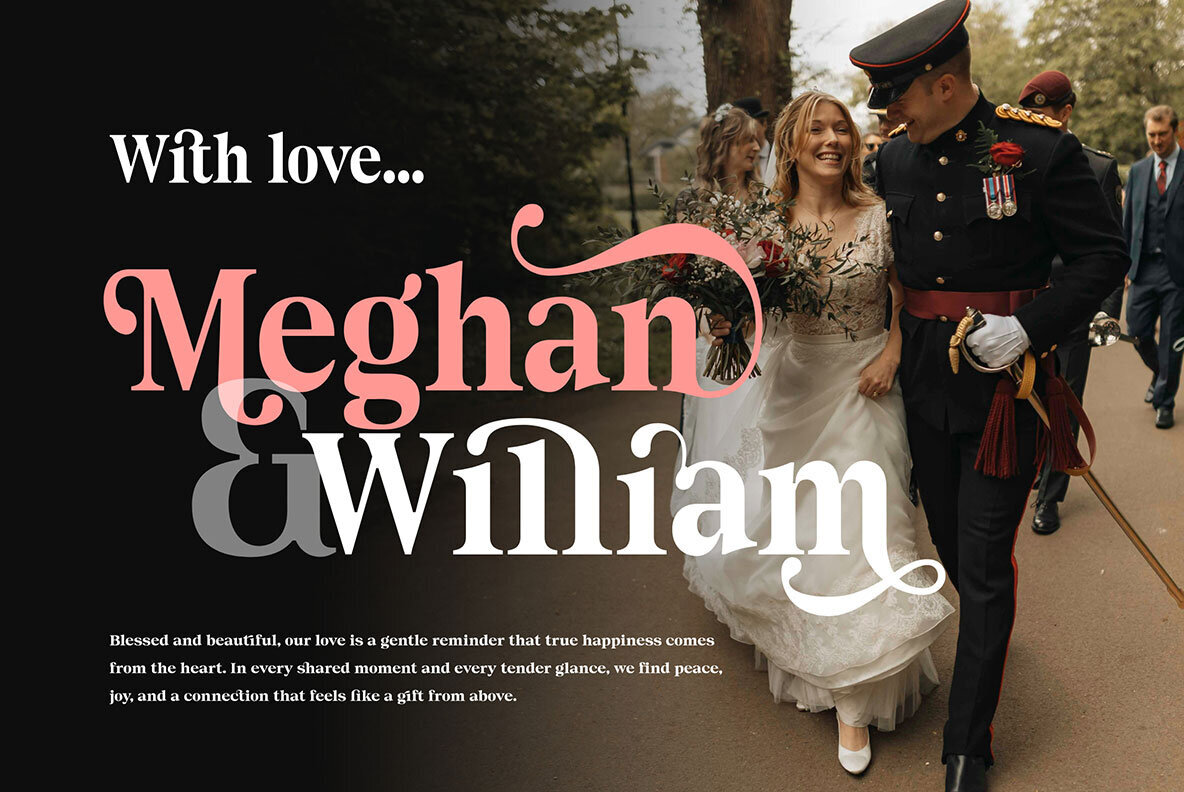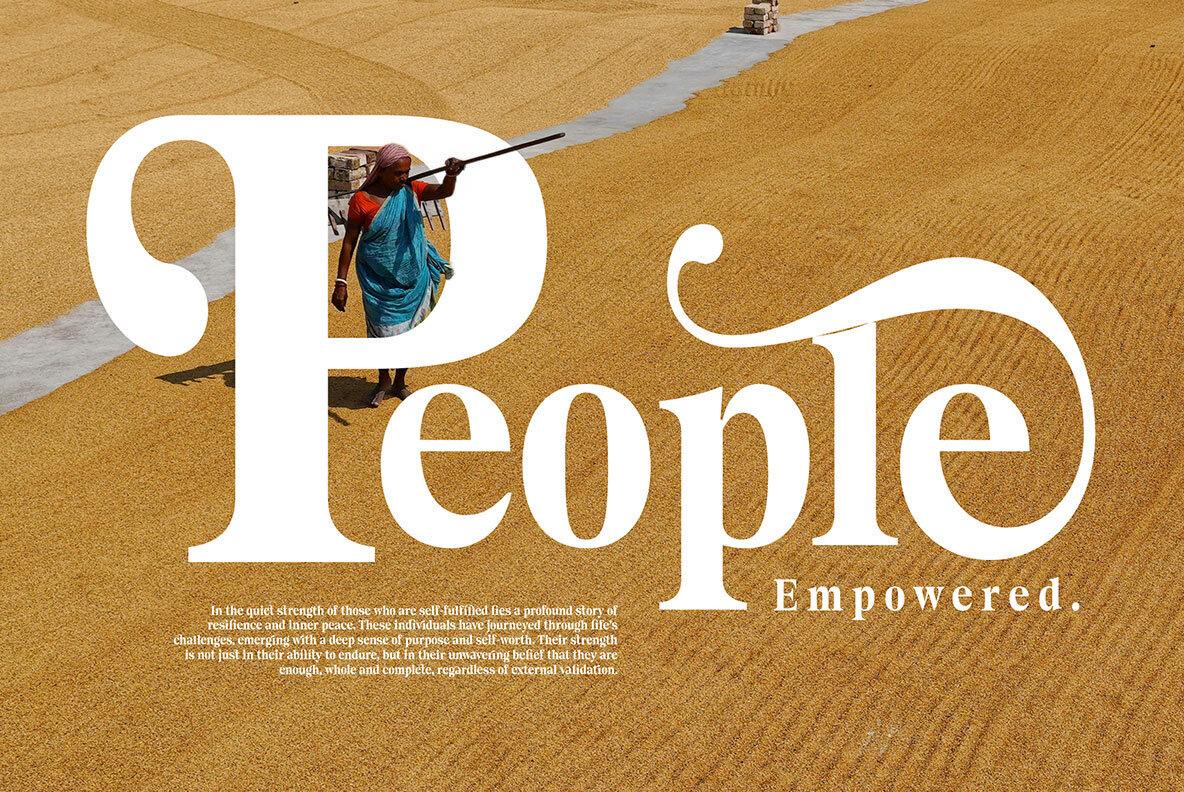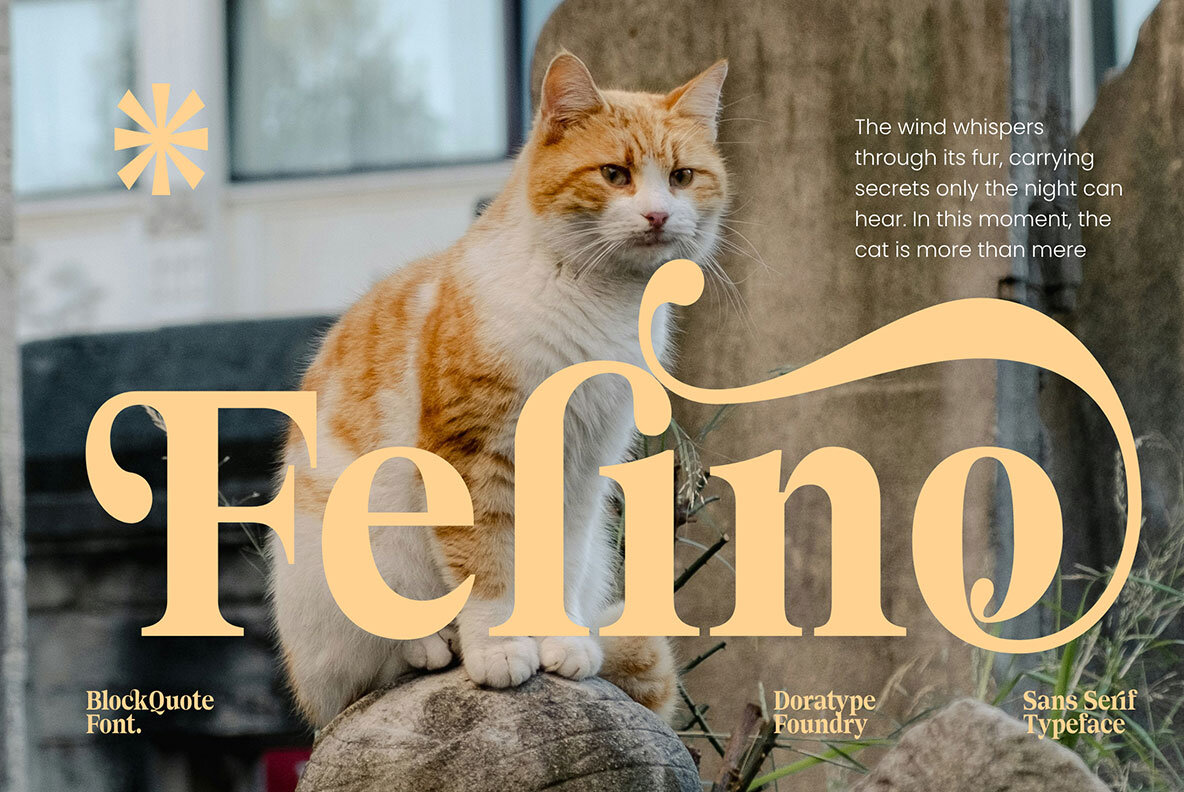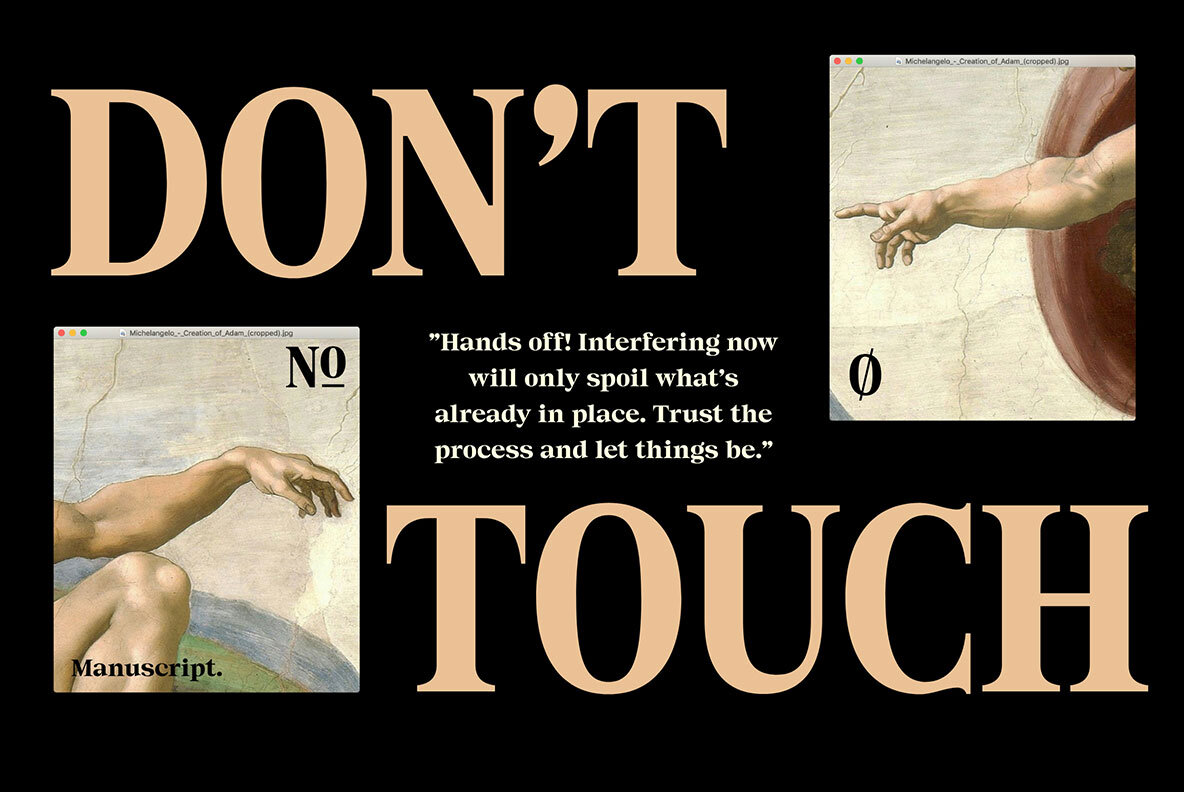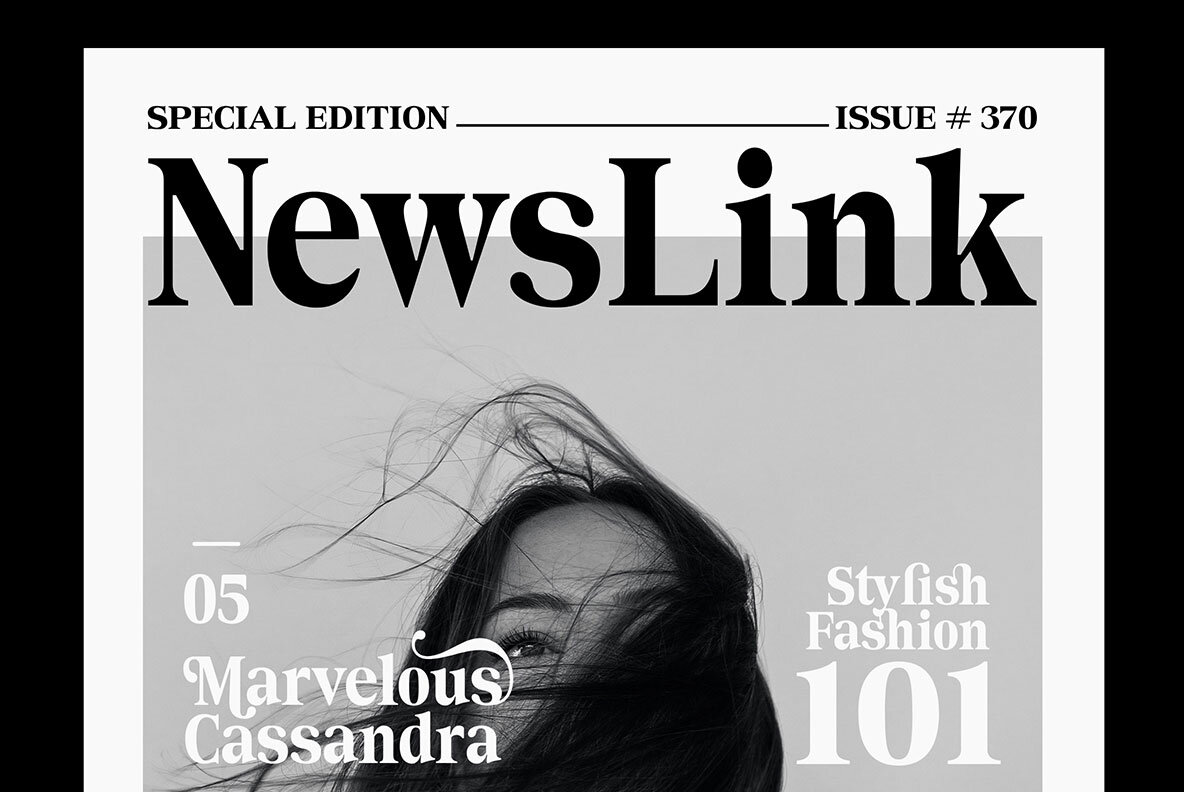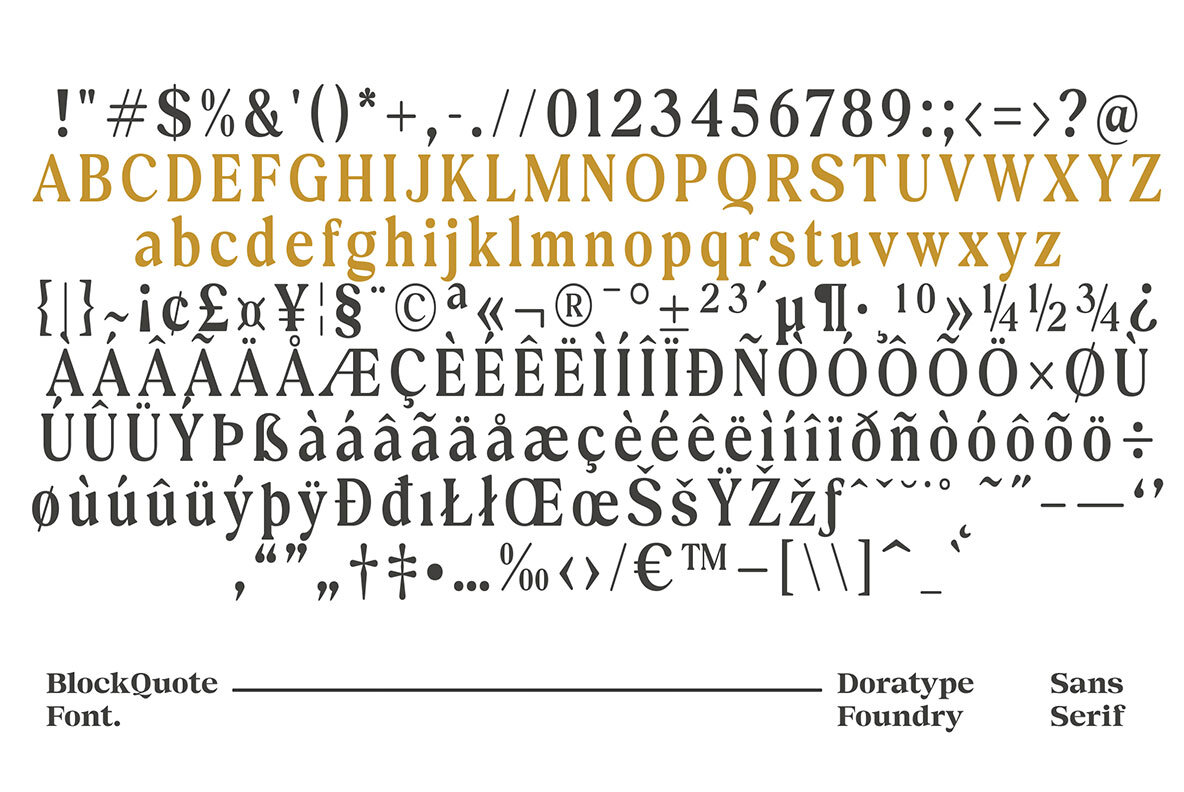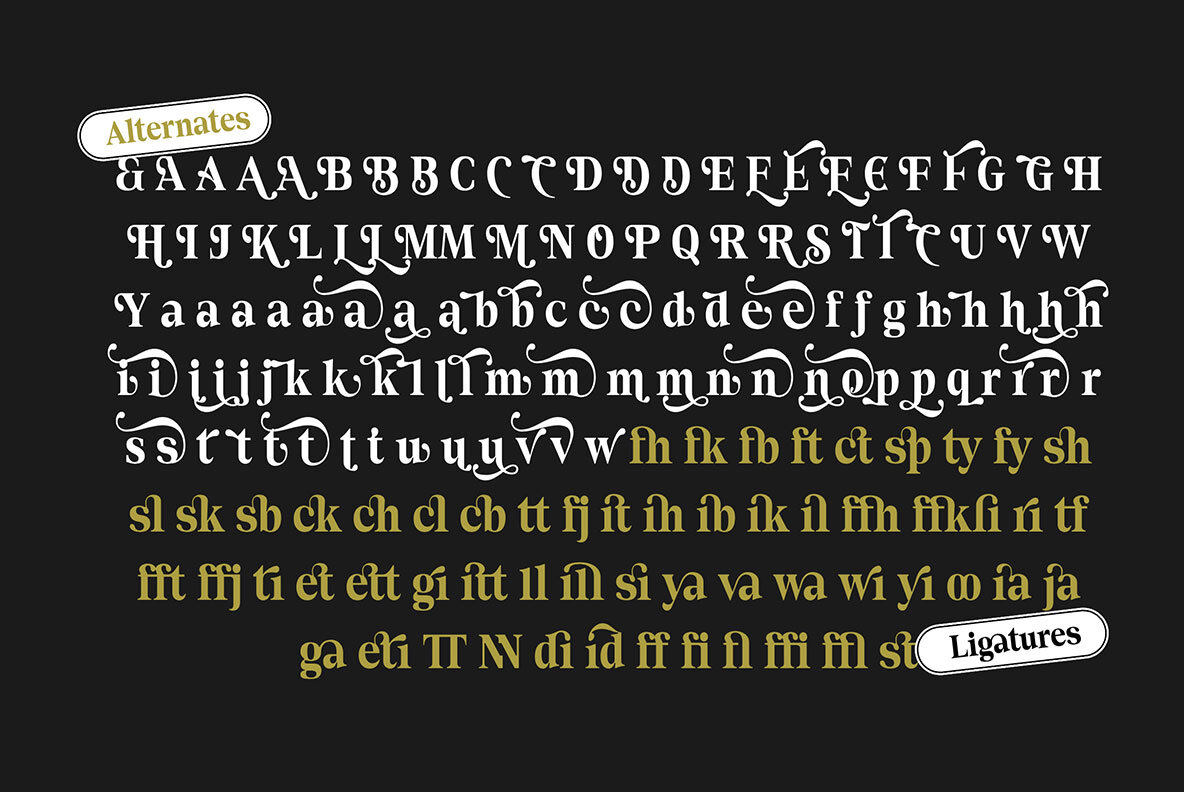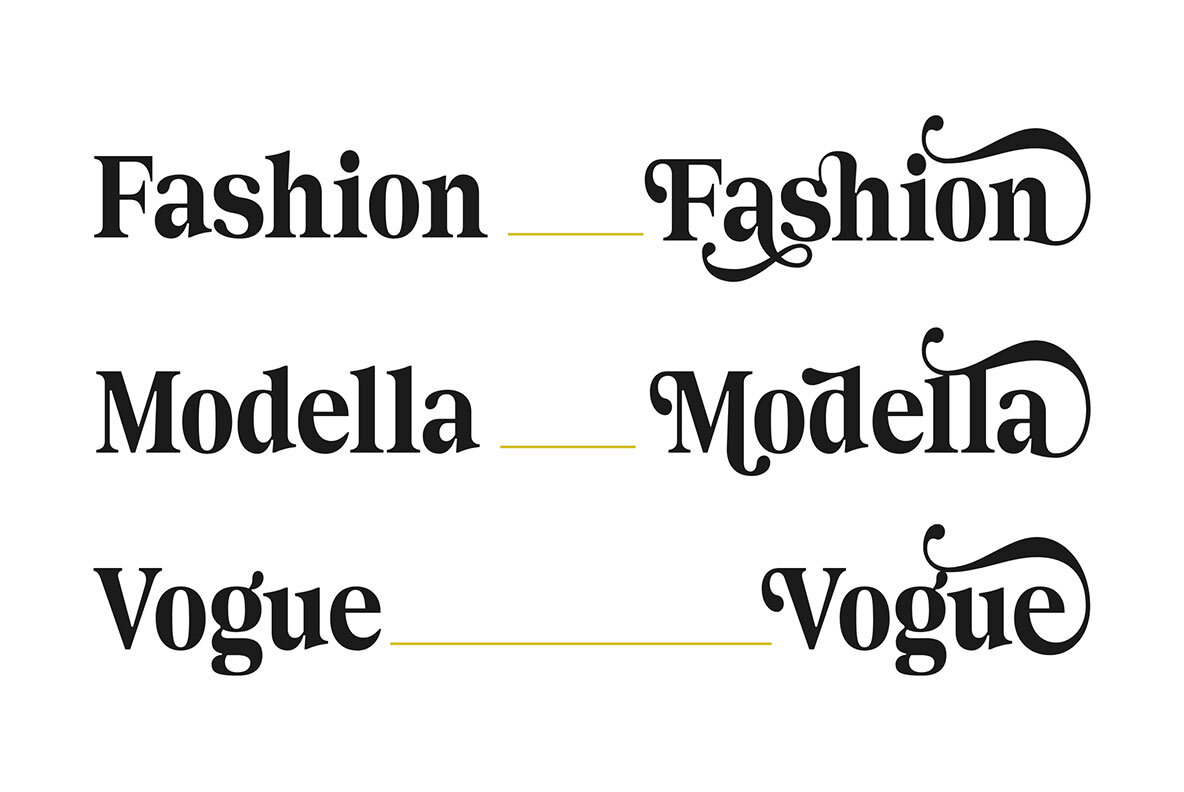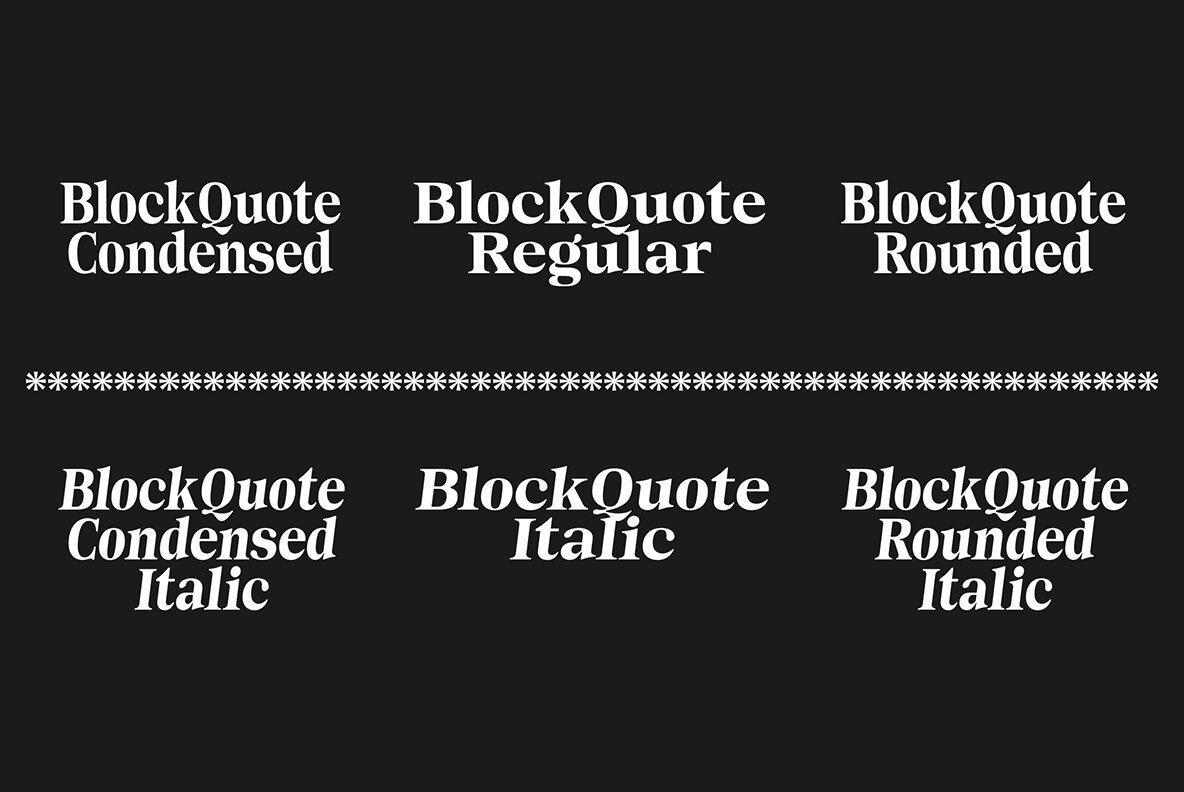
Block Quote Font
Block Quote is a meticulously crafted serif typeface that merges classic elegance with a modern design sensibility. Ideal for creating sophisticated modern designs, this typeface is available in three distinct styles: Regular, Condensed, and Rounded. It features a comprehensive set of uppercase and lowercase letters, numbers, symbols, alternates, and ligatures, with PUA encoding for easy access to all variations.
For the best experience, we recommend using design programs that support OpenType features and glyphs panels, such as Adobe and Corel Draw applications, to fully utilize its potential. With its sleek and exotic design, Block Quote is the perfect choice for any project requiring a mix of timeless and contemporary elements.